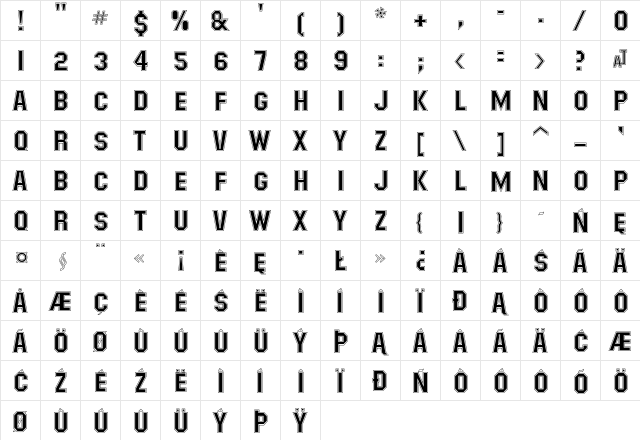
Masheen College Regular
Design Context for Masheen College Typeface
Masheen College has the bold swagger of sports branding: strong, assertive letterforms designed to dominate headlines and jerseys alike.
A natural choice for gym brands, fantasy sports, jersey lettering, and action-driven headlines.
Font Pairing: Use alongside a condensed or geometric sans for supporting copy — keep the pairing bold, functional, and free of ornament.
Pro Tip: Use Masheen College in all-caps headlines where its athletic energy can fully express itself. Pair with a solid, simple sans for supporting text.